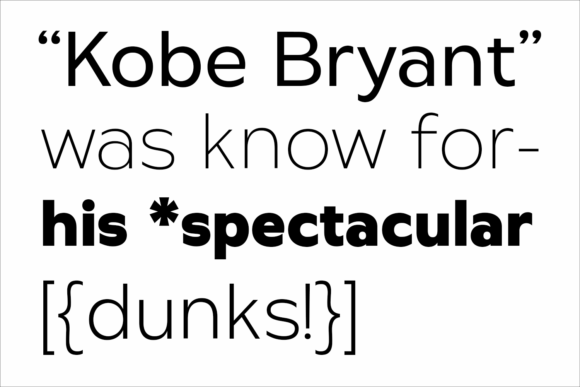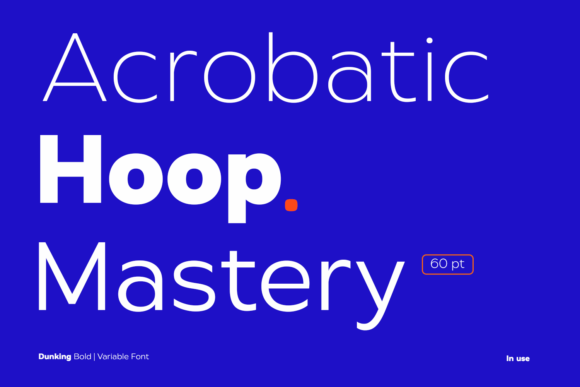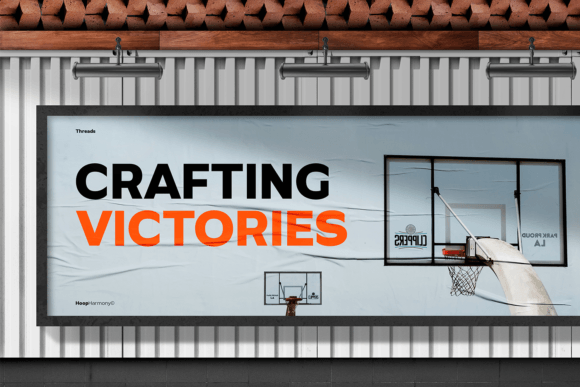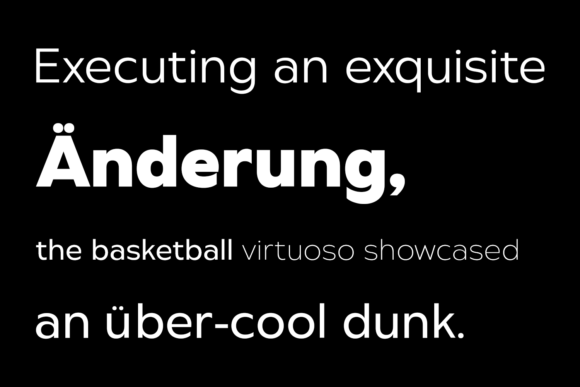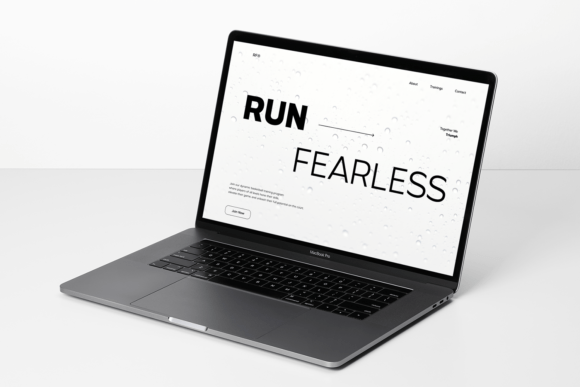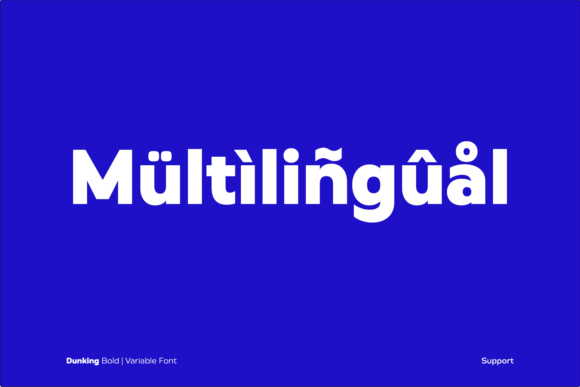
Dunking Font: Elevate Your Designs with a Fresh and Modern Typeface
In the world of typography, a font can make or break a design. With the right typeface, you can convey your message, evoke emotions, and create a lasting impression. Dunking Font is a versatile and modern typeface that has been gaining popularity among designers and crafters. Characterized by its fresh, clean geometry and modern feel, Dunking Font is perfect for a wide range of applications, from magazines and posters to branding, websites, and more.
The Characteristics of Dunking Font
Dunking Font boasts a unique set of characteristics that set it apart from other typefaces. Its clean geometry and modern feel give it a refreshing touch, providing a supportive impression that is both elegant and sophisticated. The font’s versatility makes it an excellent choice for designers who want to create a cohesive visual identity across various platforms.
Key Features of Dunking Font
- Fresh and Clean Geometry: Dunking Font features a clean and geometric design that gives it a modern and sleek look.
- Modern Feel: The font’s modern feel makes it perfect for designs that require a contemporary and sophisticated look.
- Refreshing Touch: Dunking Font’s refreshing touch provides a supportive impression that is both elegant and sophisticated.
- Versatility: The font’s versatility makes it suitable for a wide range of applications, from magazines and posters to branding, websites, and more.
Uses of Dunking Font
Dunking Font is an incredibly versatile typeface that can be used in various design projects. Here are some of the ways you can use Dunking Font:
- Magazines and Newspapers: Dunking Font is perfect for magazine and newspaper designs, providing a clean and modern look that is easy to read.
- Posters and Flyers: The font’s bold and geometric design makes it an excellent choice for posters and flyers that require a striking visual impact.
- Branding and Logo Design: Dunking Font can be used to create a cohesive visual identity for brands, providing a modern and sophisticated look that is both elegant and memorable.
- Websites and Digital Media: The font’s clean and modern design makes it perfect for websites, social media graphics, and other digital media.
Why Choose Dunking Font?
With so many typefaces available, why choose Dunking Font? Here are some reasons why Dunking Font stands out from the rest:
- Unique Design: Dunking Font features a unique design that sets it apart from other typefaces.
- Versatility: The font’s versatility makes it suitable for a wide range of applications.
- Modern Feel: Dunking Font’s modern feel makes it perfect for designs that require a contemporary and sophisticated look.
- Ease of Use: The font is easy to read and use, making it perfect for designers who want to create a professional-looking design without spending too much time on typography.
Tips for Using Dunking Font
Here are some tips for using Dunking Font effectively in your designs:
- Pair it with Other Fonts: Dunking Font can be paired with other fonts to create a unique and visually appealing design.
- Experiment with Different Sizes: The font’s clean design makes it perfect for use at different sizes, from large headings to small body text.
- Use it for Headings and Titles: Dunking Font is perfect for headings and titles, providing a bold and striking visual impact.
- Keep it Simple: The font’s clean design makes it perfect for designs that require a simple and elegant look.
| Font Name | Dunking Font |
Dunking Font is a versatile and modern typeface that is perfect for designers and crafters who want to create a fresh and sophisticated look. With its clean geometry, modern feel, and refreshing touch, Dunking Font is suitable for a wide range of applications, from magazines and posters to branding, websites, and more. Whether you’re a professional designer or a DIY enthusiast, Dunking Font is an excellent choice for your next design project.